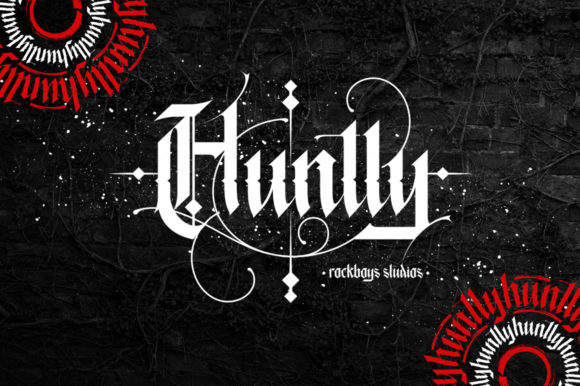
Unleash the Enigmatic Charm of Huntly Font: A Poetic Canvas for Your Creative Expressions
Step into the realm of awe-inspiring typography with Huntly Font, a blackletter masterpiece crafted by RockboyStudio. This font is not just a collection of letters; it's an artistic gateway to a bygone era, where handwritten scripts danced with elegance and mystery.
Imagine your words adorned with the intricate swirls and flourishes of Huntly, captivating readers with its timeless allure. Let your poetry soar on the wings of this font, transforming each verse into a visual masterpiece. Design posters that whisper tales of old, where knights and dragons once roamed. Create logos that exude an air of sophistication and intrigue, leaving an indelible mark on your audience's minds.
With Huntly, your designs transcend the ordinary and embrace the extraordinary. Whether you're crafting book covers that transport readers to forgotten realms or designing album art that resonates with raw emotion, this font will be your trusted companion, guiding your creativity to new heights.